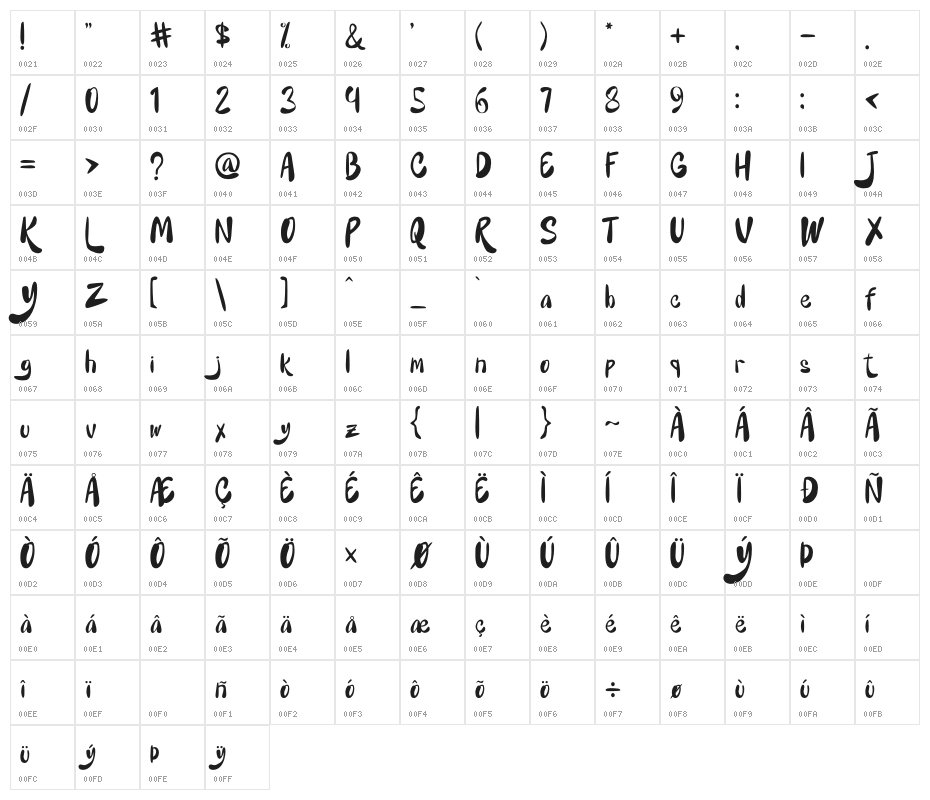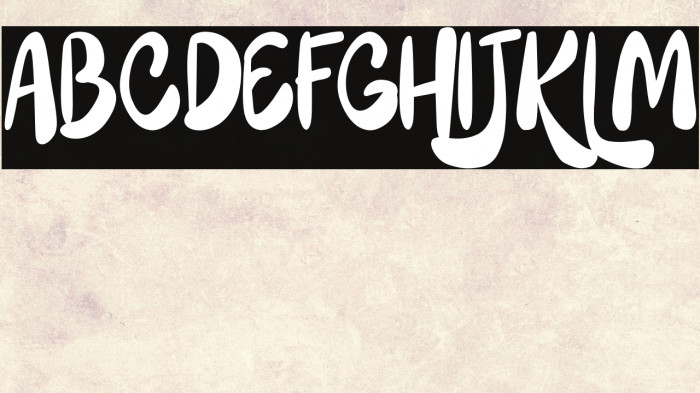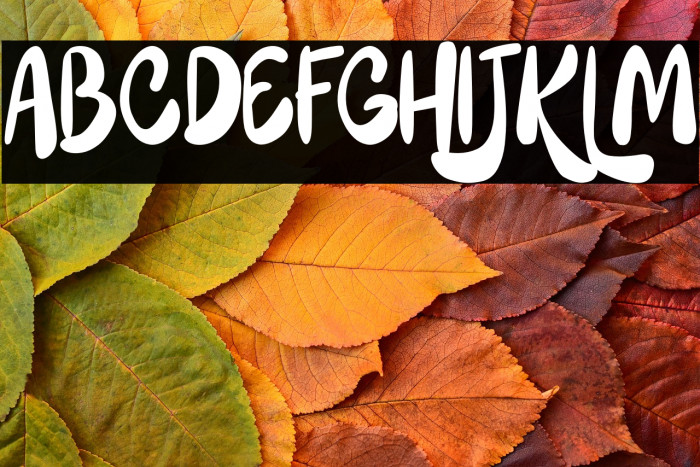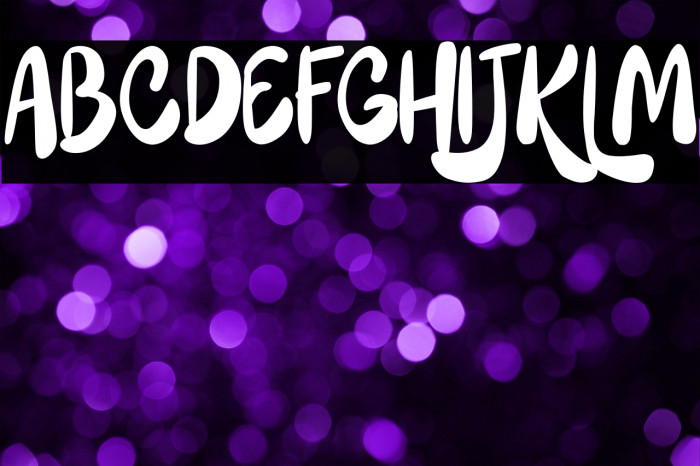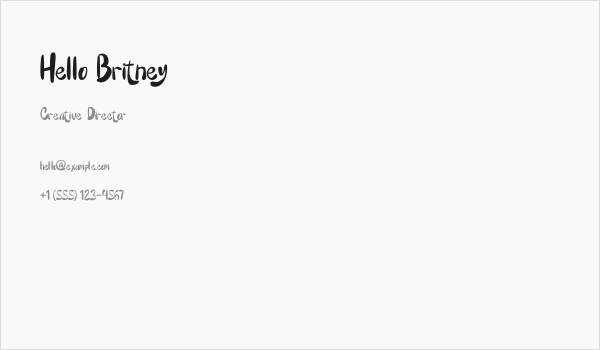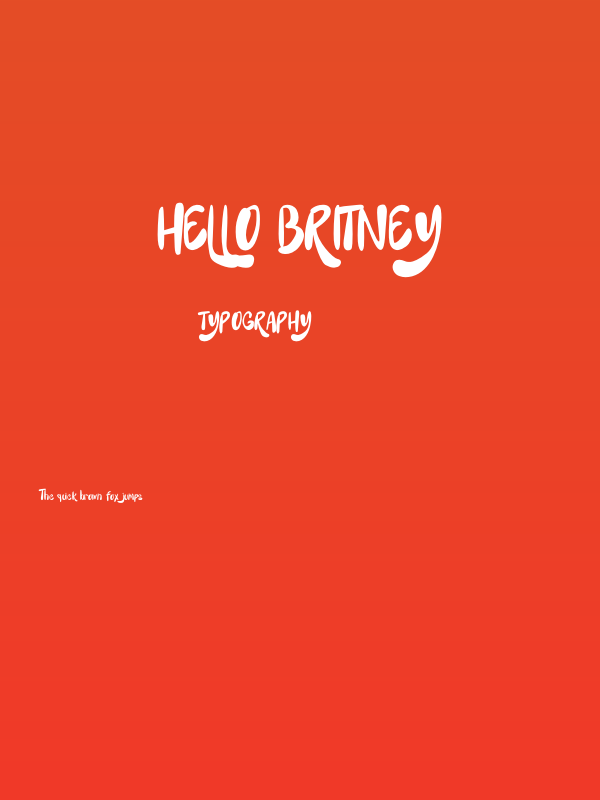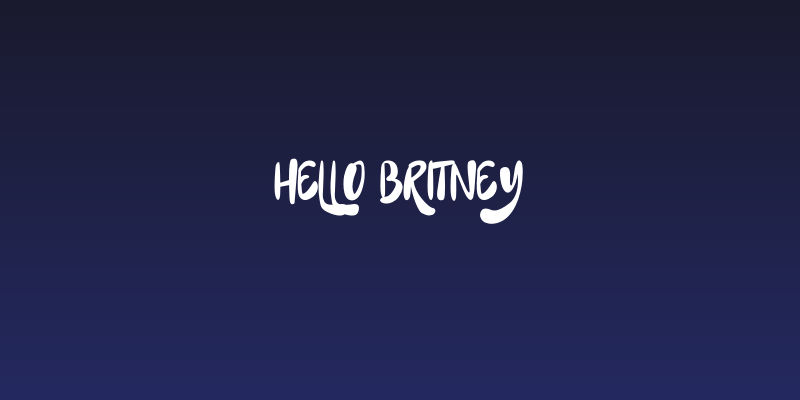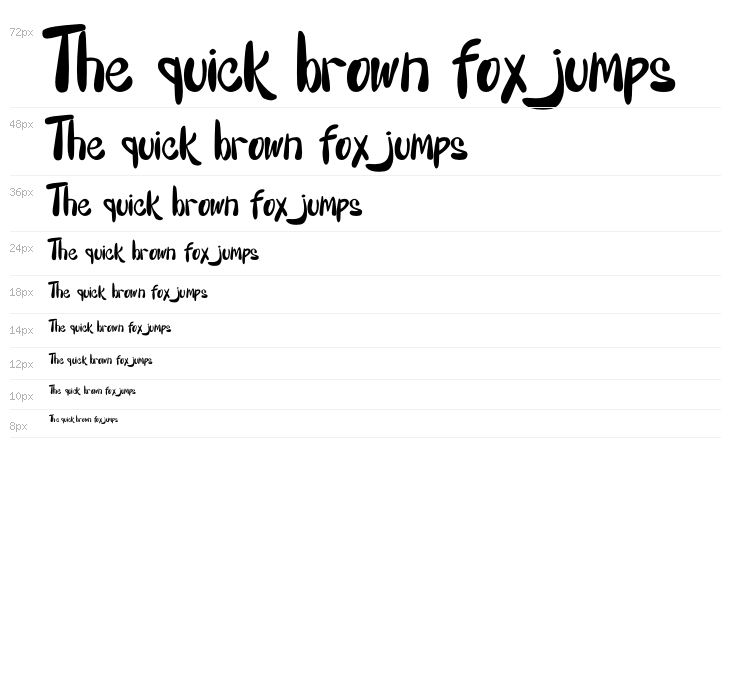
Hello Britney Font
Hello Britney Description
This font features a playful and bold handwritten style, characterized by its thick strokes and dynamic curves. The uppercase letters are particularly striking, with a slightly exaggerated height and width that give them a strong presence. The lowercase letters maintain a consistent flow, complementing the uppercase with their rounded forms and smooth connections. Numbers and special characters follow the same energetic style, making the font versatile for various uses. Its boldness and unique character make it stand out, while still being legible and approachable.
| Proposed Projects | Ideal for branding projects, children's book covers, playful posters, and creative social media graphics. |